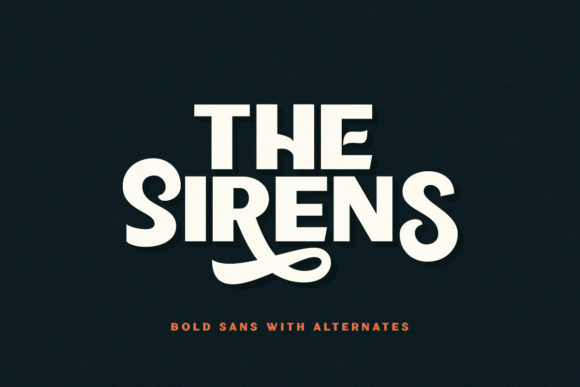
The Sirens Font: A Bold Sans Serif Font for Vintage Logo Design
About the The Sirens Font
The wait is over! The incredible The Sirens Font is now available for your design toolkit. The Sirens is a casual and modern sans typeface. It includes amazing alternates in each lowercase letter which makes it the perfect fit for almost every design.
Add a strong touch to your headlines, titles, logos, quotes, and much more!
The Sirens Font Usage Examples
The Sirens Font Example